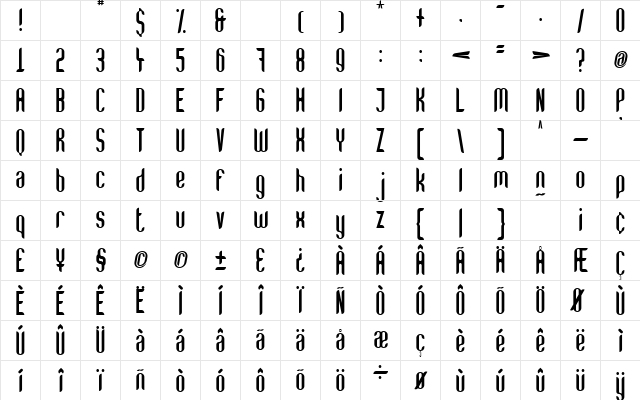
Lo-Fi Medium
Design Context for Lo-Fi Typeface
Lo-Fi offers clean, dependable letterforms without strong stylistic allegiance, making it a practical choice for designers who need flexibility.